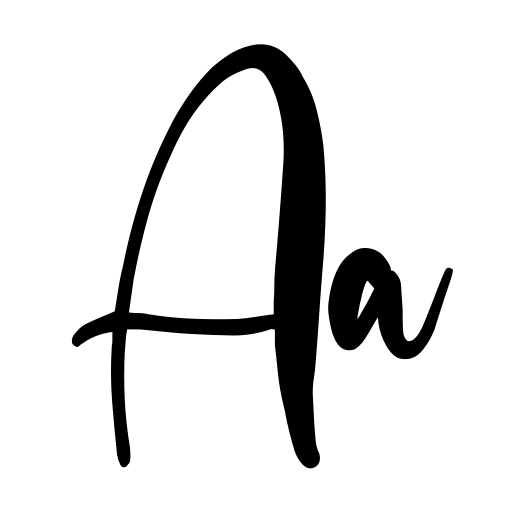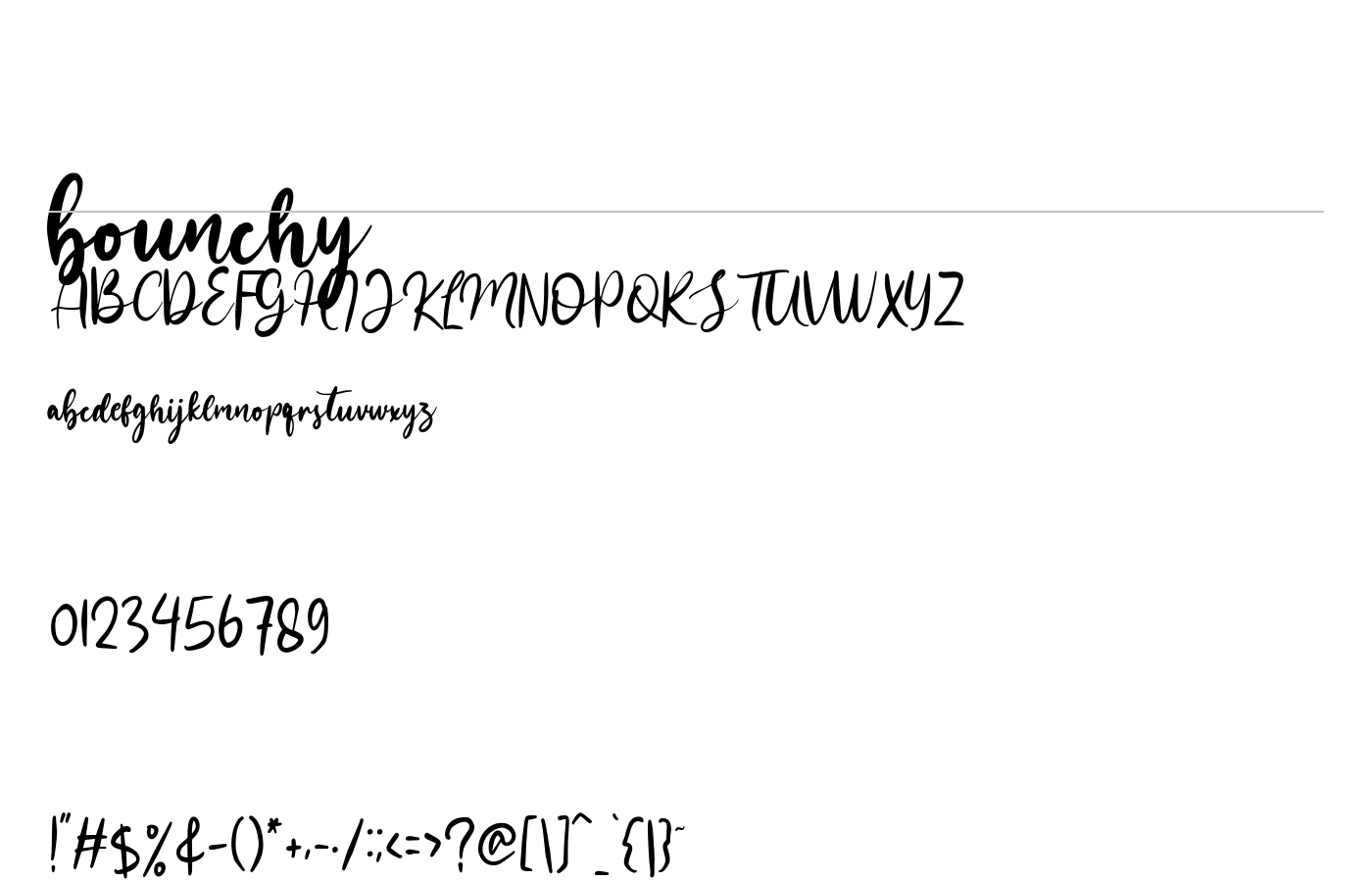
Bounchy is a playful, handwritten script font with a lively, bouncy rhythm that gives it a friendly and approachable personality. Its smooth, slightly irregular strokes and tall, narrow letterforms make it perfect for casual branding, creative projects, and invitations where a cheerful, personal touch is desired. This font works well in headlines, logos, and packaging that aim to evoke warmth and spontaneity.
bounchy Font